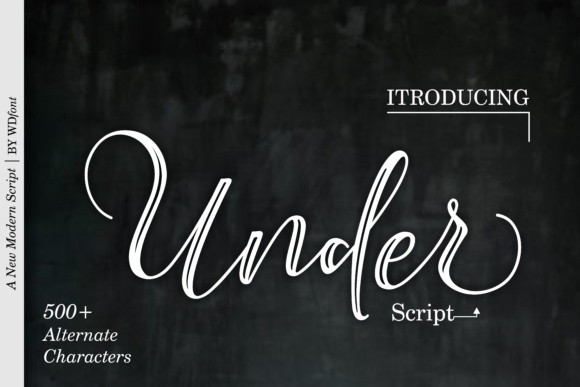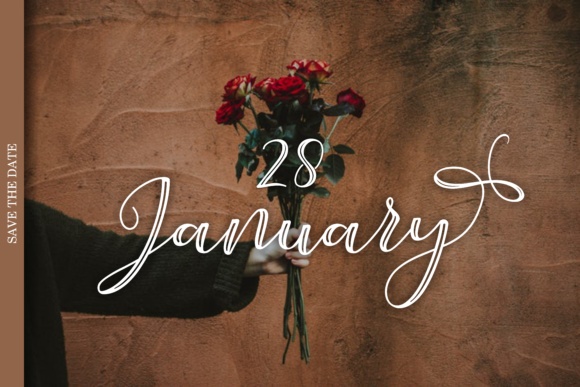
Under Script Font
About Under Script Font
The Under Script is a script font with a smooth handwritten style. It comes with lots of alternate characters. It’s perfect for branding projects, homeware designs, product packaging, name cards, invitation cards, etc. Simply as a stylish text overlay to any background image or anything requiring a sprinkle of elegance.